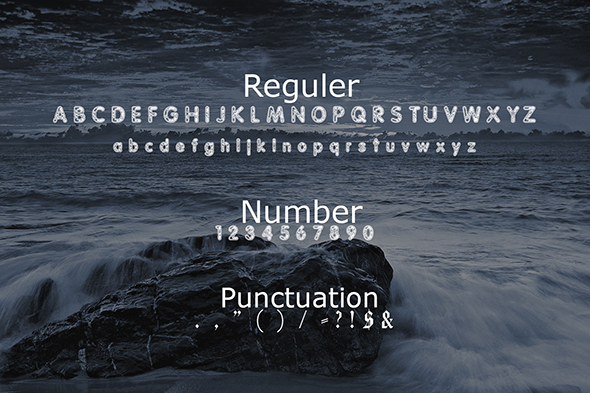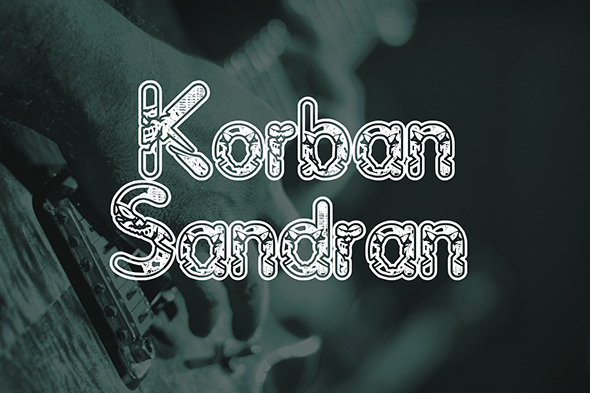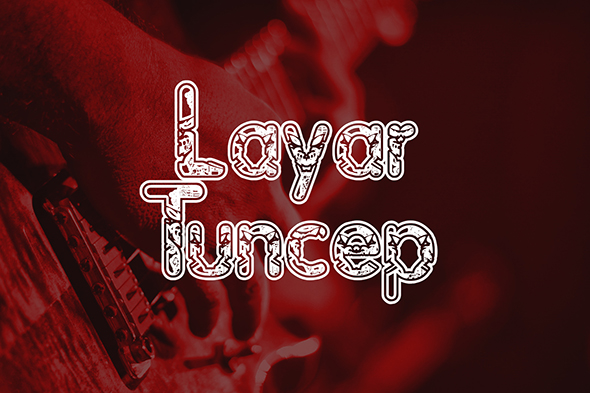
Unleash Your Creativity with eXploitasi Font: A Unique Typeface for Design Enthusiasts
In the world of typography, a font can make all the difference in the visual impact of a design. For creative minds, a unique typeface can elevate a project from ordinary to extraordinary. This is where eXploitasi Font comes into play – a truly one-of-a-kind typeface that can add a touch of personality to various design projects. In this article, we’ll dive into the world of eXploitasi Font and explore its versatility, features, and uses.
The Birth of eXploitasi Font
eXploitasi Font is a carefully crafted typeface designed to cater to the needs of creative professionals. Its unique design makes it perfect for headlines, book covers, posters, invitations, and a wide range of other applications. The font’s distinctiveness lies in its ability to add a touch of sophistication and elegance to any design.
Key Features of eXploitasi Font
• Unique Design: eXploitasi Font boasts a distinctive design that sets it apart from other typefaces. Its elegant lines and curves make it perfect for designs that require a touch of sophistication.
• Versatility: This font is incredibly versatile and can be used for a wide range of applications, from headlines and titles to body text and captions.
• High-Quality: eXploitasi Font is designed with high-quality in mind, ensuring that it looks great in both digital and print formats.
Uses of eXploitasi Font
eXploitasi Font is an incredibly versatile typeface that can be used for various purposes, including:
• Headlines: Use eXploitasi Font to create eye-catching headlines that grab attention and make a statement.
• Book Covers: Add a touch of elegance to your book covers with eXploitasi Font, perfect for fiction, non-fiction, and children’s books.
• Posters: Create stunning posters that showcase your creative skills with eXploitasi Font.
• Invitations: Make your invitations stand out with eXploitasi Font, perfect for weddings, parties, and other special events.
• Branding: Use eXploitasi Font to create a unique brand identity that sets your business apart from the competition.
Why Choose eXploitasi Font?
With so many typefaces available, why choose eXploitasi Font? Here are a few reasons:
• Unique: eXploitasi Font is a truly unique typeface that will make your designs stand out from the crowd.
• Elegant: The font’s elegant design makes it perfect for designs that require a touch of sophistication.
• Versatile: eXploitasi Font can be used for a wide range of applications, making it a great addition to any designer’s toolkit.
Tips for Using eXploitasi Font
To get the most out of eXploitasi Font, here are a few tips:
• Experiment with Sizes: Try using eXploitasi Font in different sizes to create visual hierarchy and add emphasis to your designs.
• Play with Colors: Experiment with different colors to add depth and personality to your designs.
• Mix and Match: Combine eXploitasi Font with other typefaces to create a unique and visually appealing design.
Font Name EXploitasi Font
Author Gblack Id
In conclusion, eXploitasi Font is a truly unique typeface that can add a touch of personality to various design projects. Its versatility, elegance, and high-quality design make it perfect for creative professionals who want to make a statement. Whether you’re designing headlines, book covers, posters, or invitations, eXploitasi Font is a great choice. So why not give it a try and unleash your creativity?